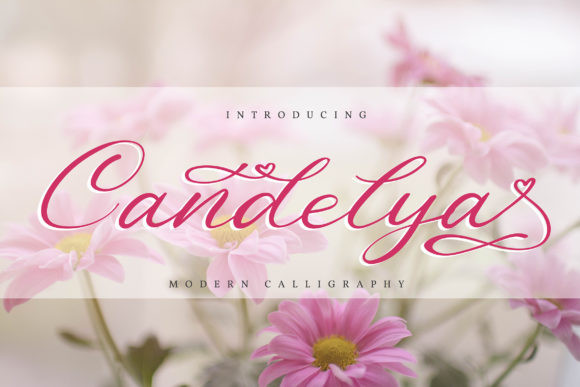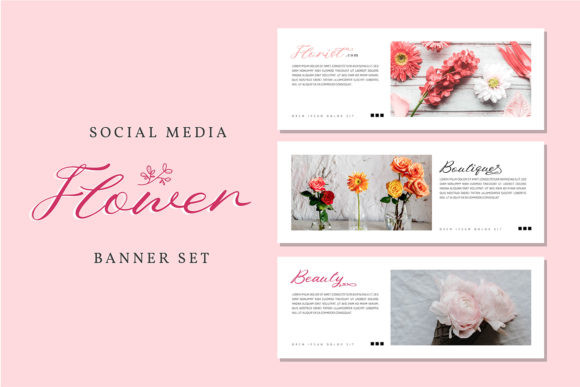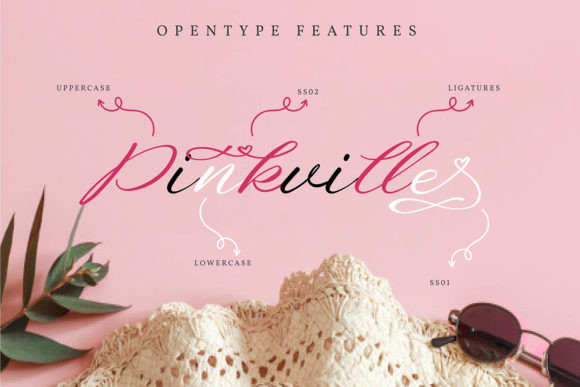
Candelya Font
Candelya FontCandelya is a cute and delicate handwritten font. Simple and easy to use, this font will be very beautiful if you mix it with your various craft designs.